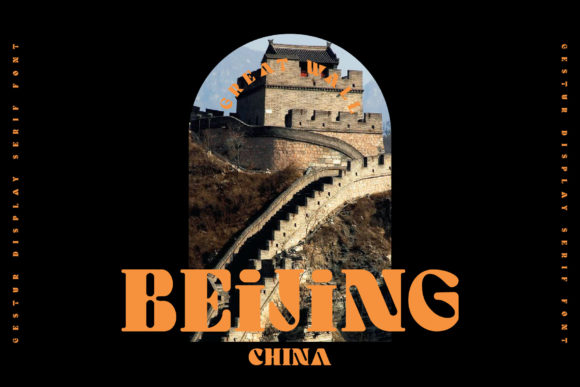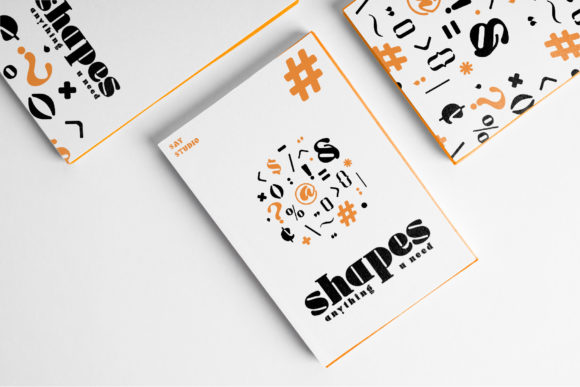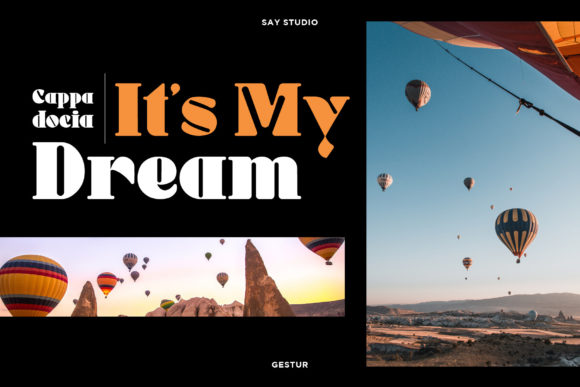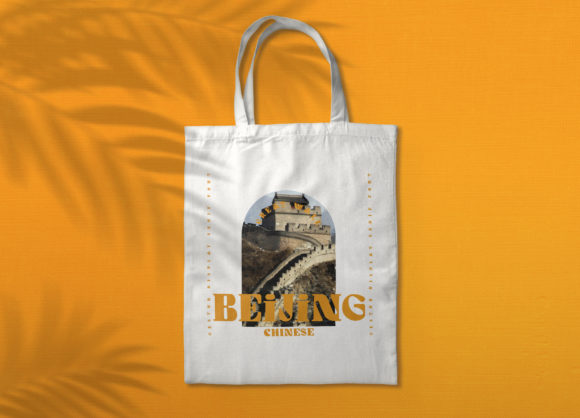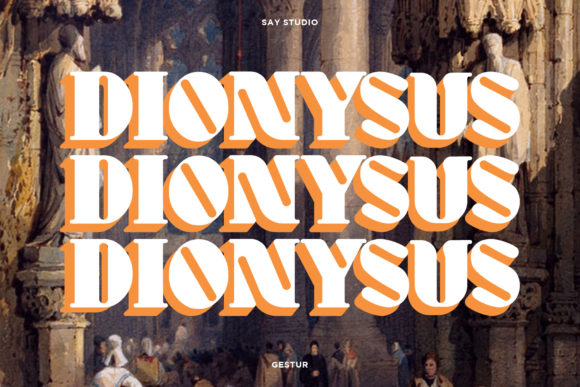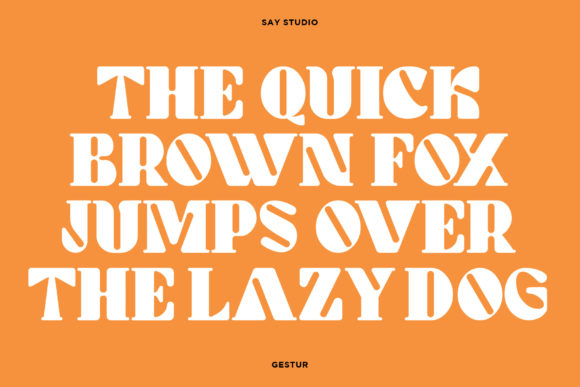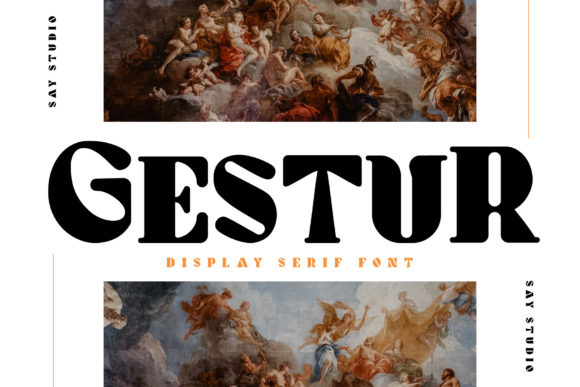
Introducing Gestur Font: The Ultimate Display Font for Creative Projects
Are you a designer, crafter, or DIY enthusiast looking for a font that can elevate your creative projects to the next level? Look no further than Gestur Font, a bold and thick lettered display font that’s perfect for making a statement. In this article, we’ll dive into the features and benefits of Gestur Font, and explore how it can be used to turn your creative ideas into stunning works of art.
What is Gestur Font?
Gestur Font is a display font designed to make a bold impact. Its thick, chunky letters are perfect for creating eye-catching headlines, titles, and captions that demand attention. Whether you’re designing for print or digital media, Gestur Font is the perfect choice for adding a touch of drama and flair to your projects.
Key Features of Gestur Font
- Bold and Thick Lettering: Gestur Font features bold, thick letters that are perfect for creating eye-catching headlines and titles.
- Display Font: Designed specifically for display purposes, Gestur Font is perfect for use in titles, headings, and captions.
- Easy to Read: Despite its bold and thick lettering, Gestur Font is surprisingly easy to read, making it perfect for use in a variety of creative projects.
- Versatile: Gestur Font can be used in a wide range of creative projects, from Instagram graphics to DIY craft projects.
Uses for Gestur Font
Gestur Font is a versatile font that can be used in a wide range of creative projects. Here are just a few ideas to get you started:
- Instagram Graphics: Use Gestur Font to create eye-catching Instagram graphics that showcase your brand or personality.
- DIY Craft Projects: Add a touch of personality to your DIY craft projects with Gestur Font, perfect for use in titles, headings, and captions.
- Signage: Use Gestur Font to create bold and eye-catching signage for your business or event.
- Packaging: Add a touch of drama and flair to your packaging with Gestur Font, perfect for use in product labels and branding.
Why Choose Gestur Font?
With so many fonts to choose from, why should you choose Gestur Font? Here are just a few reasons why Gestur Font stands out from the crowd:
- Unique and Eye-Catching: Gestur Font is a truly unique and eye-catching font that’s sure to make your creative projects stand out.
- High-Quality Design: Gestur Font is designed to the highest standards, ensuring a crisp and clear appearance in all your creative projects.
Tips for Using Gestur Font
Here are a few tips for getting the most out of Gestur Font:
- Use it Sparingly: Gestur Font is a bold and eye-catching font, so use it sparingly to avoid overwhelming your design.
- Pair it with Other Fonts: Gestur Font pairs well with a wide range of other fonts, so don’t be afraid to experiment with different combinations.
- Experiment with Colors: Gestur Font looks great in a wide range of colors, so don’t be afraid to experiment and find the perfect color for your design.
In conclusion, Gestur Font is a bold and thick lettered display font that’s perfect for making a statement in your creative projects. With its unique and eye-catching design, high-quality construction, and ease of use, Gestur Font is the perfect choice for designers and crafters looking to elevate their projects to the next level. Whether you’re designing for print or digital media, Gestur Font is sure to turn your creative ideas into stunning works of art.